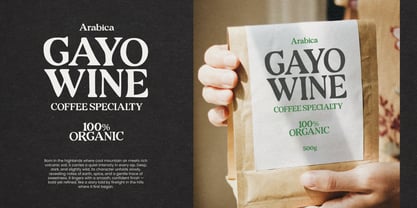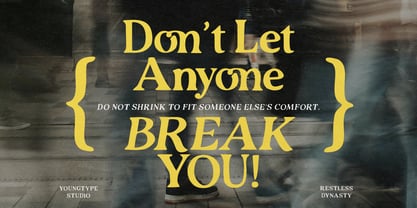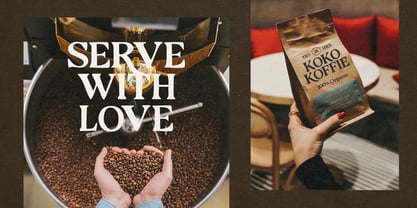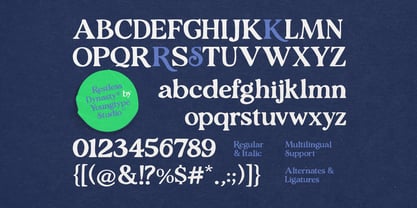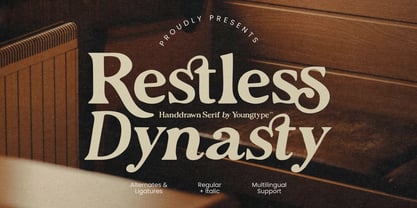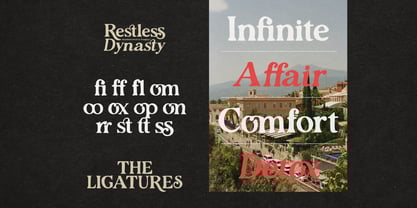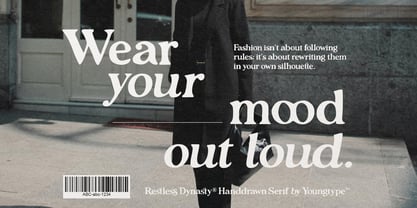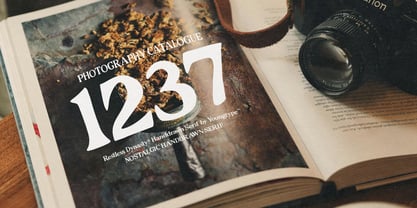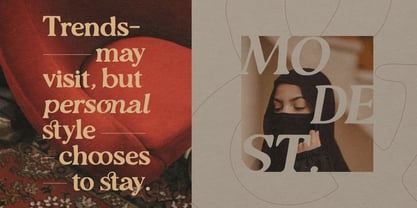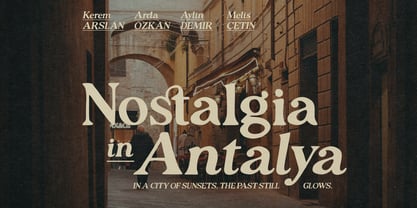
Restless Dynasty
by Youngtype
The Restless Dynasty Font Family was designed by Naufal Paramata and published by Youngtype. Restless Dynasty contains 2 styles and family package options. More about this family
Restless Dynasty is a commanding hand-drawn serif typeface that radiates timeless elegance and artistic soul. With its flowing curves, dramatic swashes, and expressive ligatures, this font captures the romance of classical typography while embracing a bold, contemporary attitude. Each letterform feels alive — sculpted with intention, rich in character, and unapologetically distinctive. The contrast between thick and thin strokes adds sophistication, while the organic imperfections give it warmth and authenticity. Perfect for luxury branding, editorial headlines, cinematic posters, and heritage-inspired designs, Restless Dynasty doesn’t just communicate — it declares. It tells a story of legacy, passion, and refined rebellion, making every word feel grand, poetic, and unforgettable. Contains full set : Uppercase Lowercase Ligatures Alternates Punctuation number multilingual support. Thank you
Designers: Naufal Paramata
Foundry: Youngtype